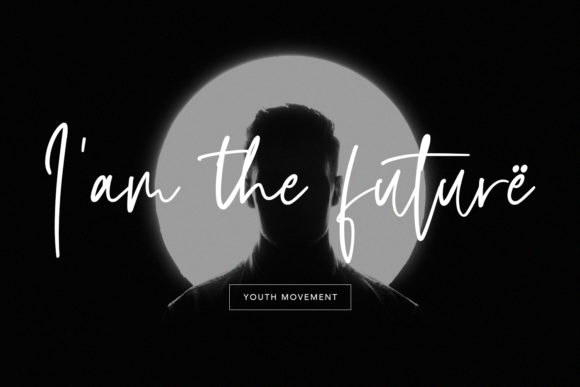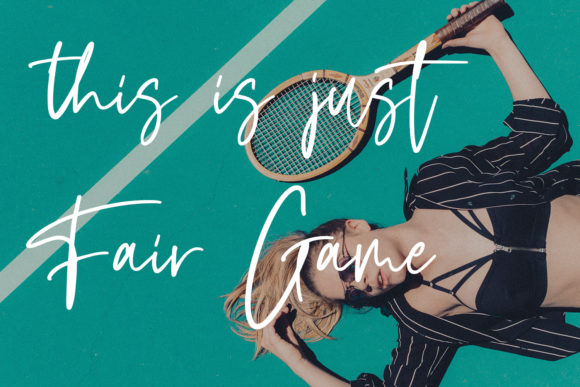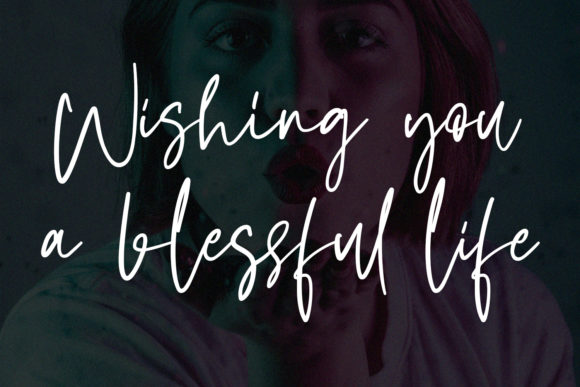
Meet Your New BFF: Electra Airs Font
Have you ever stared at a blank page, trying to conjure up the perfect design to express your creativity? We’ve all been there. But what if that perfect design was just a font away? For designers, finding the right font can make all the difference in bringing a project to life. That’s why we’re excited to introduce you to Electra Airs Font, a charming, hand-lettered script font that’s sure to capture your heart.
Electra Airs Font is the perfect tool for crafting beautiful wedding invitations, stunning stationery art, and eye-catching social media posts. Its authentic feel and soft, delicate lines make it a valuable addition to any designer’s toolkit. Whether you’re a seasoned pro or just starting out, Electra Airs Font is sure to become your go-to font for all your creative projects.
Electra Airs Font Key Features
- Font Family: Electra Airs, with 4 styles (Regular, Italic, Bold, Bold Italic) in a single font file.
- Unique Characteristics: Electra Airs features a unique blend of modern and elegant design elements, with subtle rounded edges and refined proportions.
- Language Support: Supports a wide range of languages, including Latin, Cyrillic, and Greek scripts, making it suitable for global applications.
Electra Airs Font Review
As a designer, I’ve had the chance to work with the Electra Airs Font, and I must say it’s a unique and intriguing typeface. ✨ Here are some of its strengths:
- ✨ Elegant and refined aesthetic: Electra Airs has a sophisticated look that works well for luxury brands and high-end designs.
- ✨ Wide range of weights: The font comes in multiple weights, from light to bold, allowing for a high degree of flexibility in design applications.
- ✨ OpenType features: The font includes advanced OpenType features, such as ligatures and contextual alternates, which can add a touch of sophistication to your designs.
- ⚠️ Limited language support: Electra Airs may not include the full range of language support, which could be a issue for designers working on international projects.
- ⚠️ Not ideal for body text: While Electra Airs is great for headlines and titles, it may not be the best choice for large blocks of body text due to its refined and ornate style.
Overall, I think Electra Airs is a solid choice for designers looking to add a touch of elegance and sophistication to their work. While it may not be suitable for every project, it’s definitely worth considering for luxury brands, high-end designs, and any project where a refined aesthetic is a must.
Getting the Most Out of Electra Airs Font
To get the most out of Electra Airs Font, use it in conjunction with bold or italic text to create visual interest. You can also use it in combination with other fonts to create a unique and eye-catching design.
Electra Airs Font is commonly used for: headings, titles, and logos. It’s a versatile font that can be used in a variety of contexts, from digital designs to print materials.
What font sizes and styles are available in Electra Airs?
Electra Airs includes a range of font sizes and styles, including Thin, Light, Regular, Medium, Bold, and Black. Each weight offers a range of font sizes, from 8pt to 120pt, making it suitable for a variety of design applications.